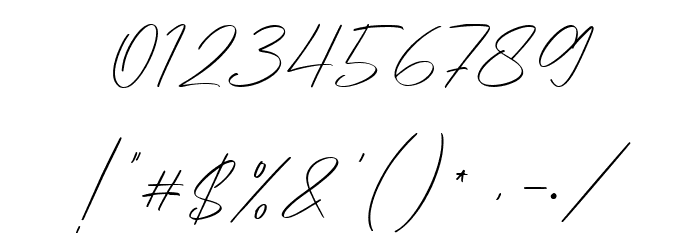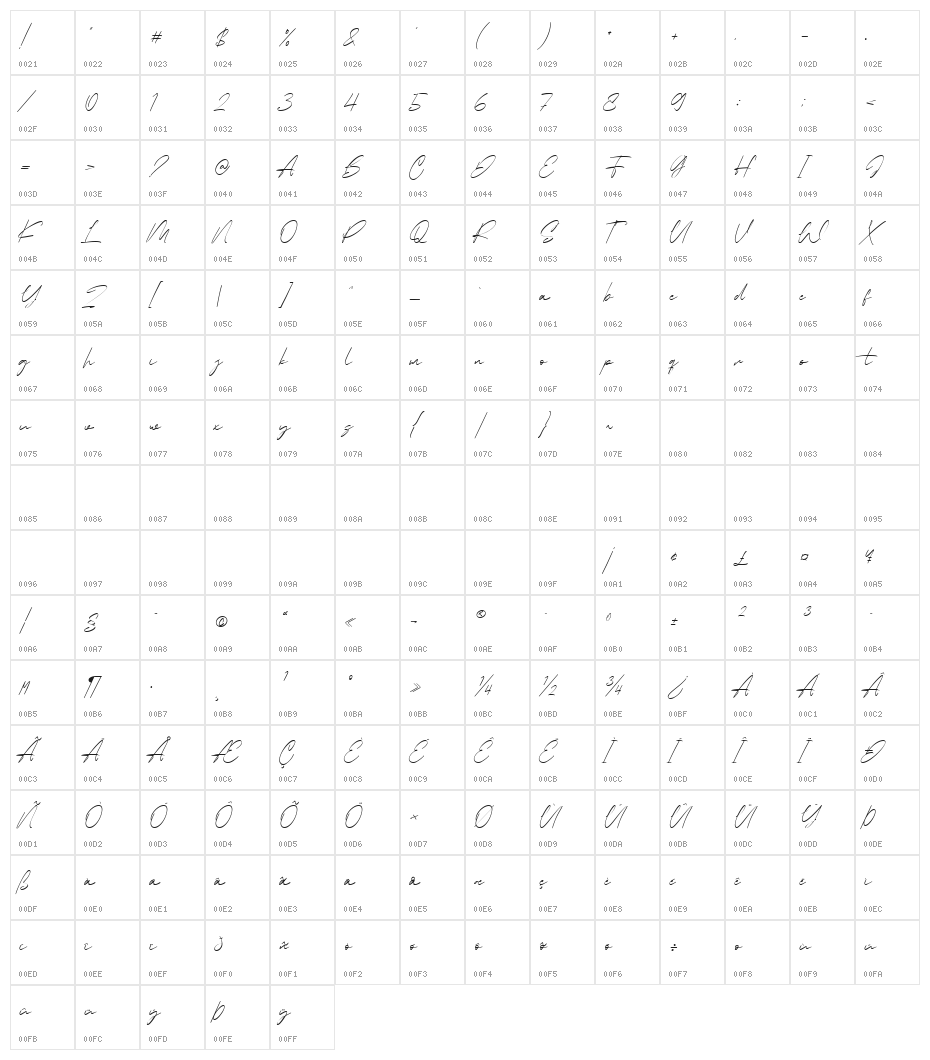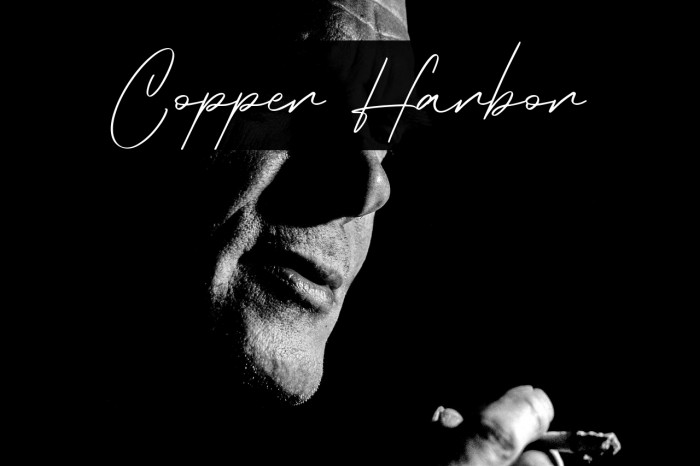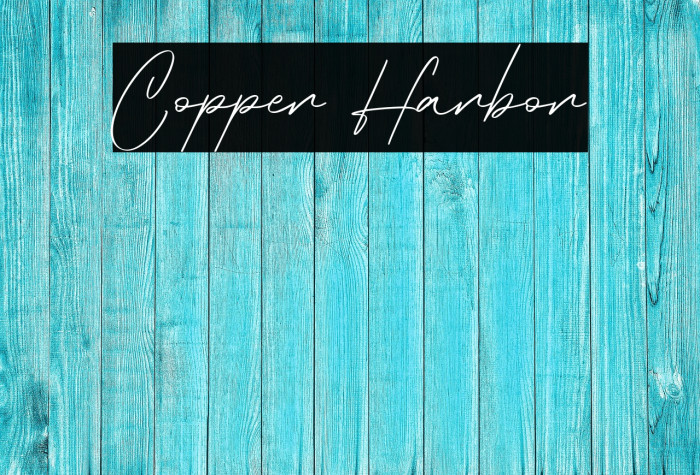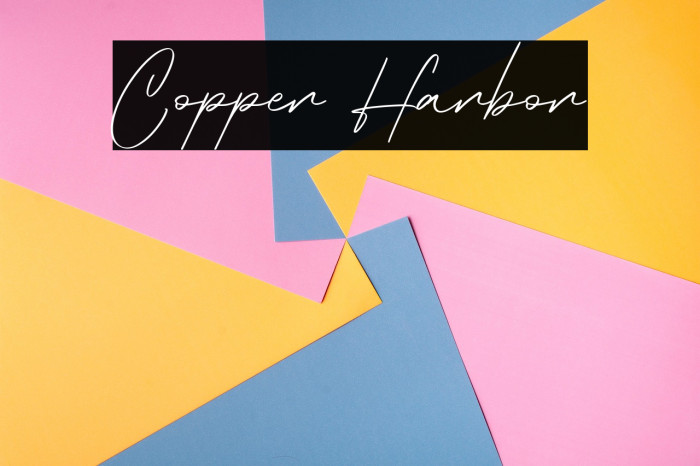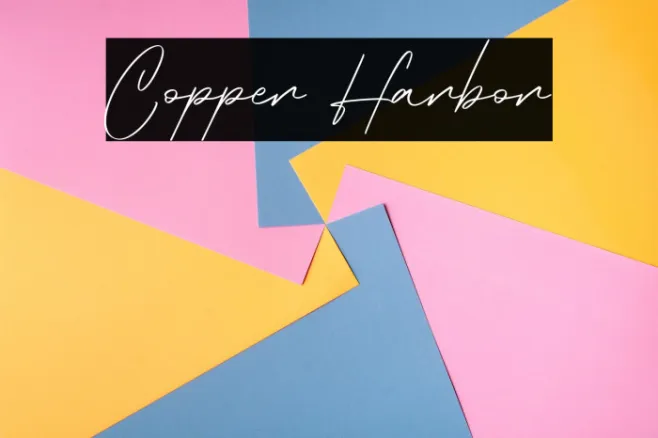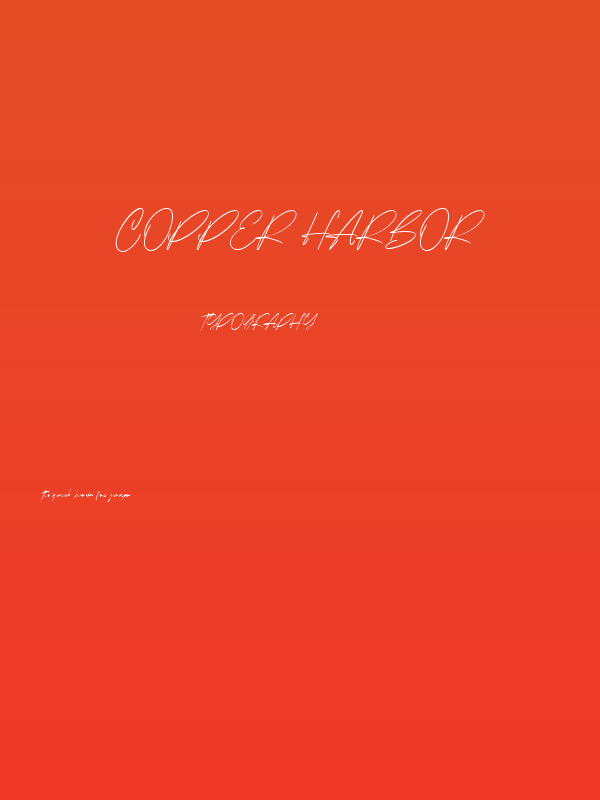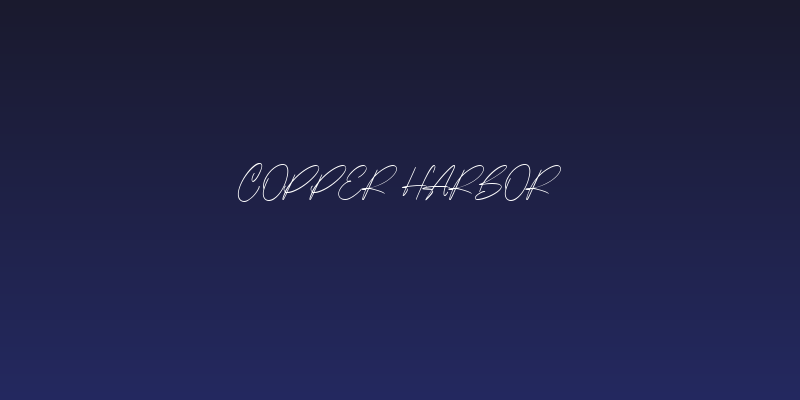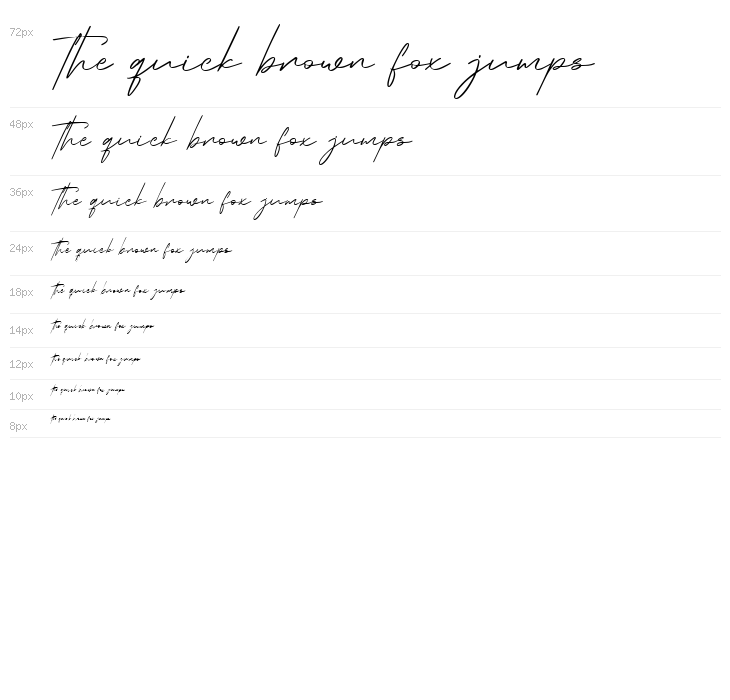
Copper Harbor Font
Copper Harbor Description
This font features a flowing, cursive style that mimics elegant handwriting. The letters are connected with smooth, sweeping lines, giving it a natural and fluid appearance. The uppercase letters are slightly larger and more pronounced, while the lowercase letters maintain a consistent flow. Numbers and special characters are designed to match the script style, ensuring a cohesive look throughout. The overall design is sophisticated and artistic, making it suitable for creative and personal projects.
| Overall Style | Elegant, Artistic |
| Proposed Projects | Ideal for wedding invitations, greeting cards, personal branding, and artistic projects. |